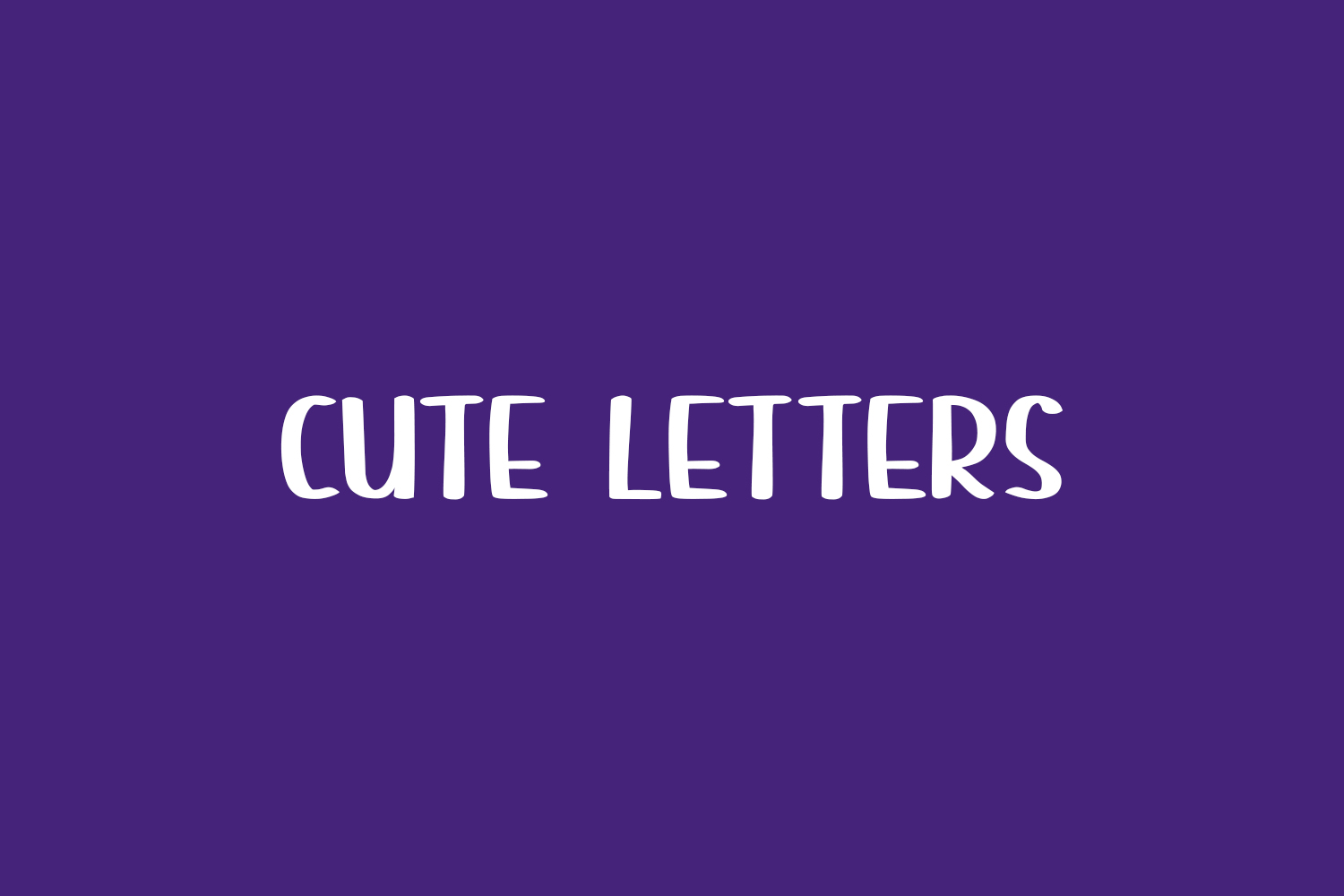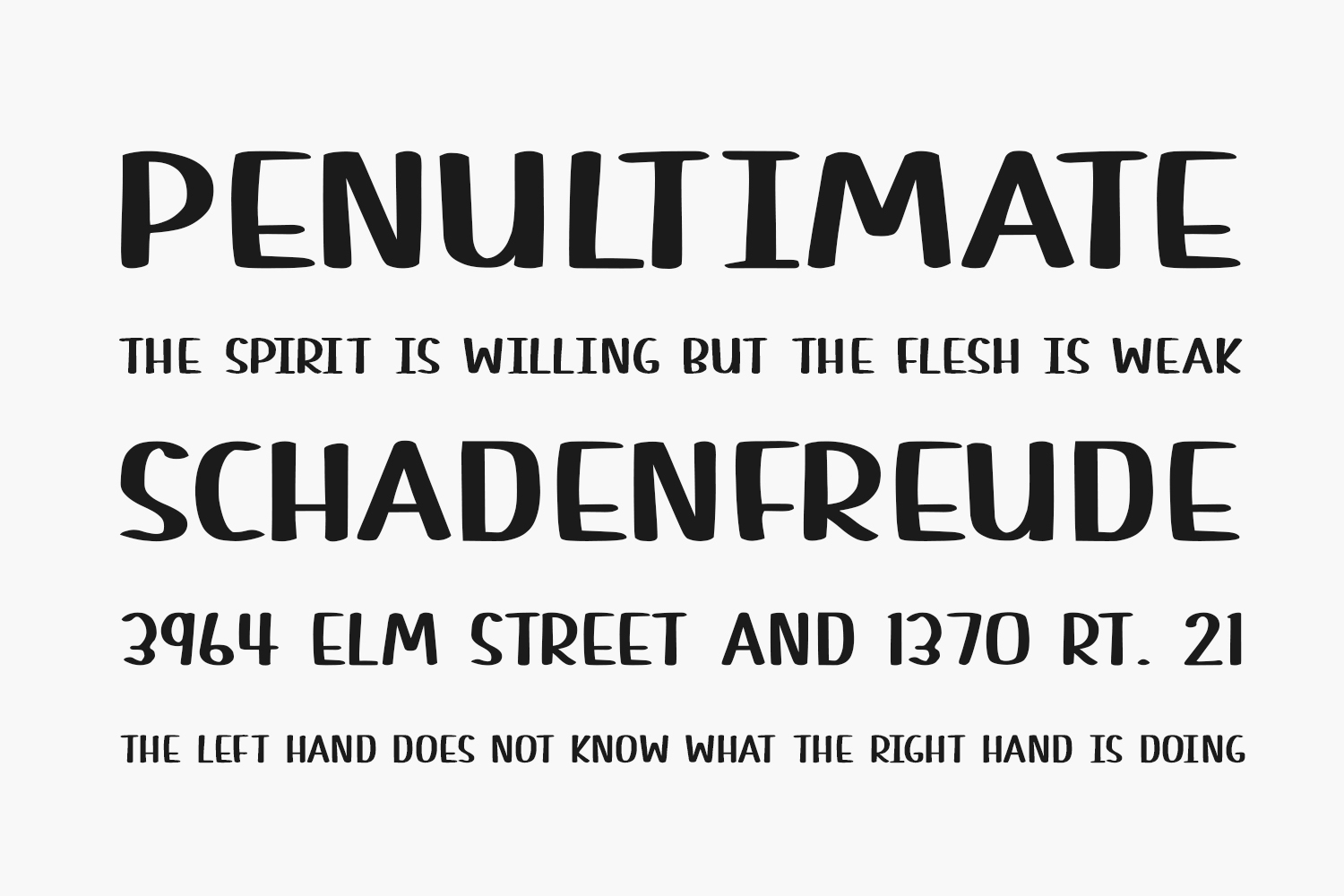
Cute Letters Free Font Family is a fun and friendly display font, that can easily stand out. Simple but with a strong visual effect, this font will instantly make your creation more appealing than any others. Cute Letters Free Font Family was designed by Joseph Dawson and is free for personal use only. Please purchase the full version for commercial use.